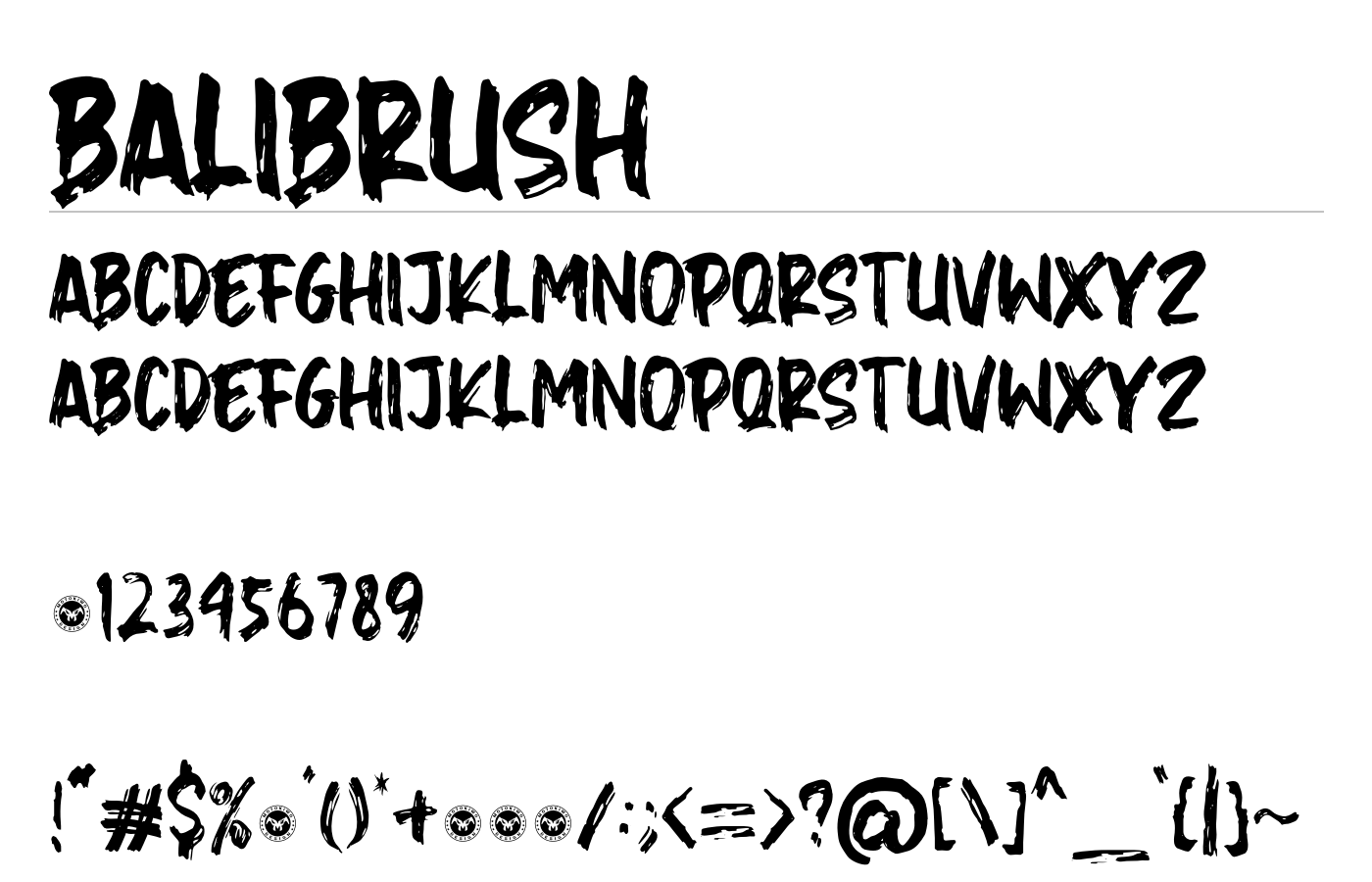
Balibrush is a bold, expressive brush-style font with a distinct hand-painted look that adds energy and personality to any design. Its robust, slightly irregular strokes and textured edges give it a dynamic, casual feel, making it ideal for creative projects, posters, logos, and branding that want to convey a lively, artistic vibe. This all-caps font is perfect for grabbing attention and adding a spirited, handcrafted touch.
Balibrush Font
About Balibrush Font